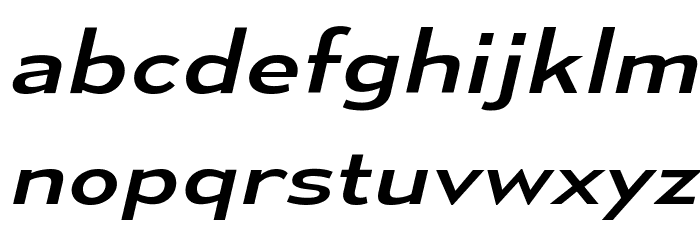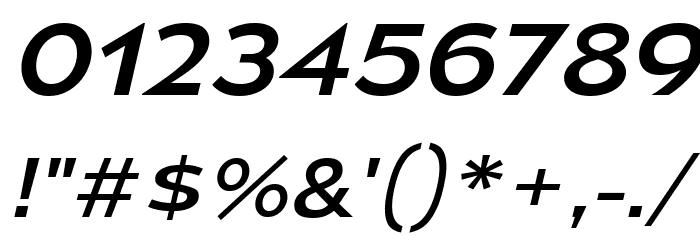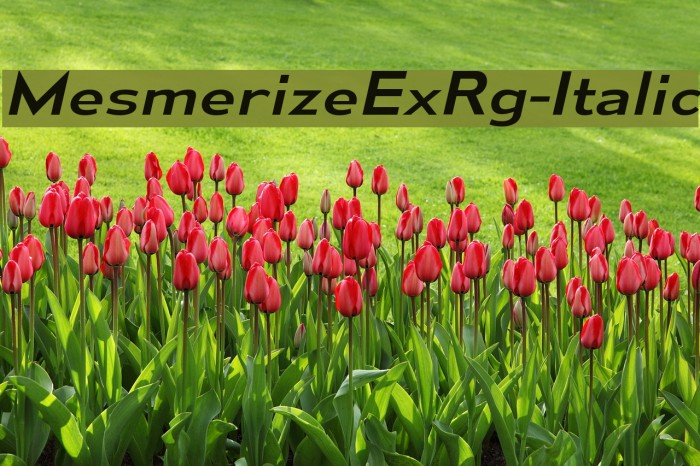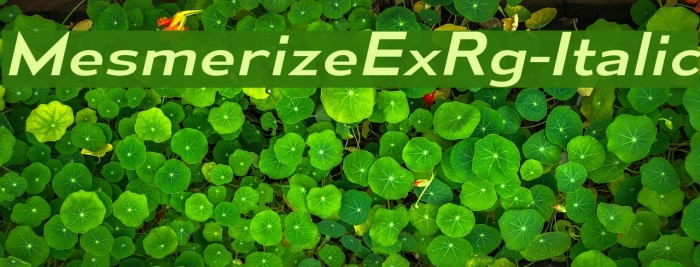
MesmerizeExRg-Italic Font
This font features a sleek and modern italic style with a slight forward slant, giving it a dynamic and energetic appearance. The characters are well-proportioned with a consistent stroke width, contributing to a clean and professional look. The uppercase letters are bold and assertive, while the lowercase letters maintain a smooth and flowing form. The numerals are clear and easily distinguishable, making them suitable for various applications. Special characters are included, providing versatility for different design needs. Overall, this font exudes a contemporary and stylish vibe, making it ideal for projects that require a touch of modernity and elegance.
A sleek, modern italic font with dynamic and energetic styling.
- Proposed Projects: Ideal for branding, advertising, digital media, and editorial design projects.
- Use Case: Headlines, Logos, Digital Media